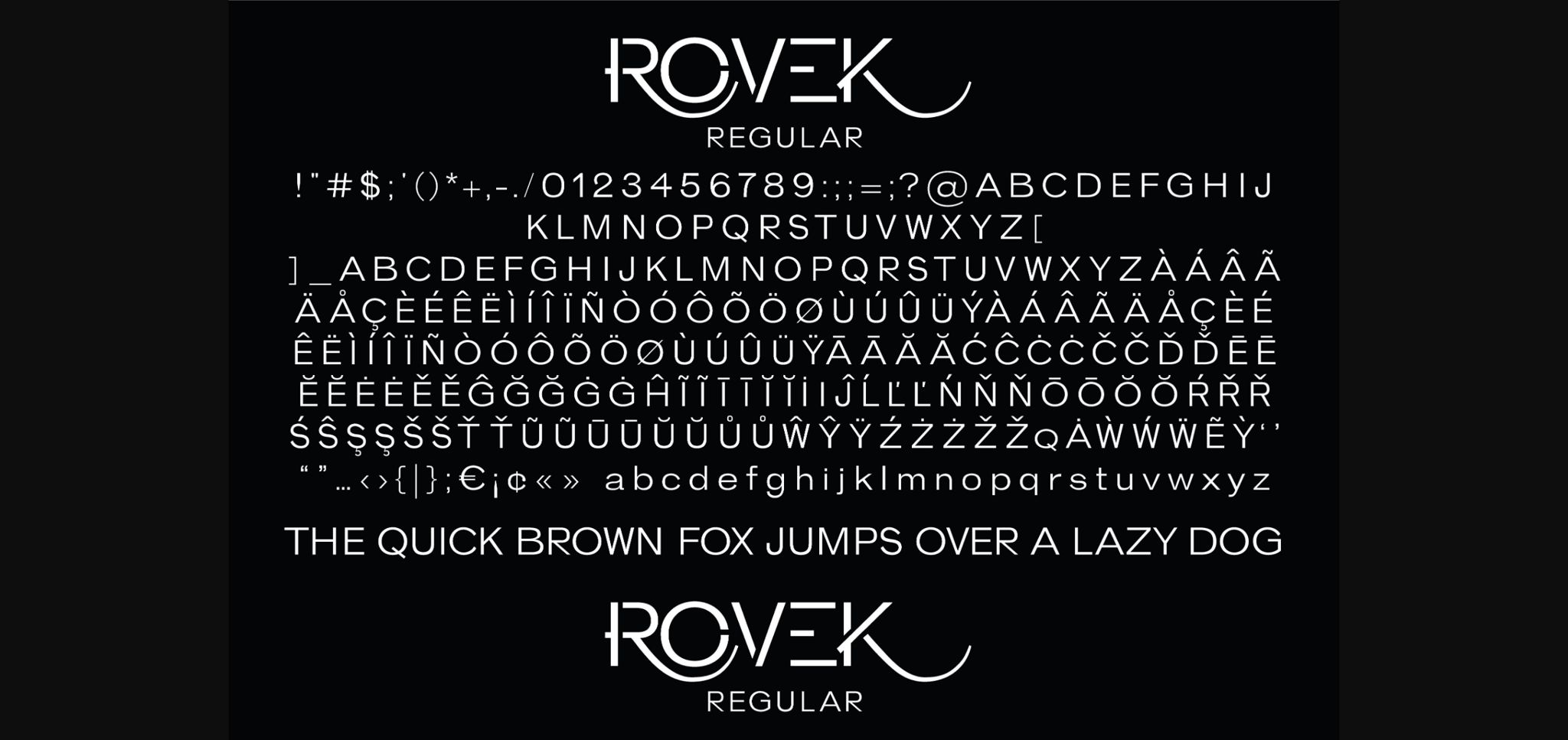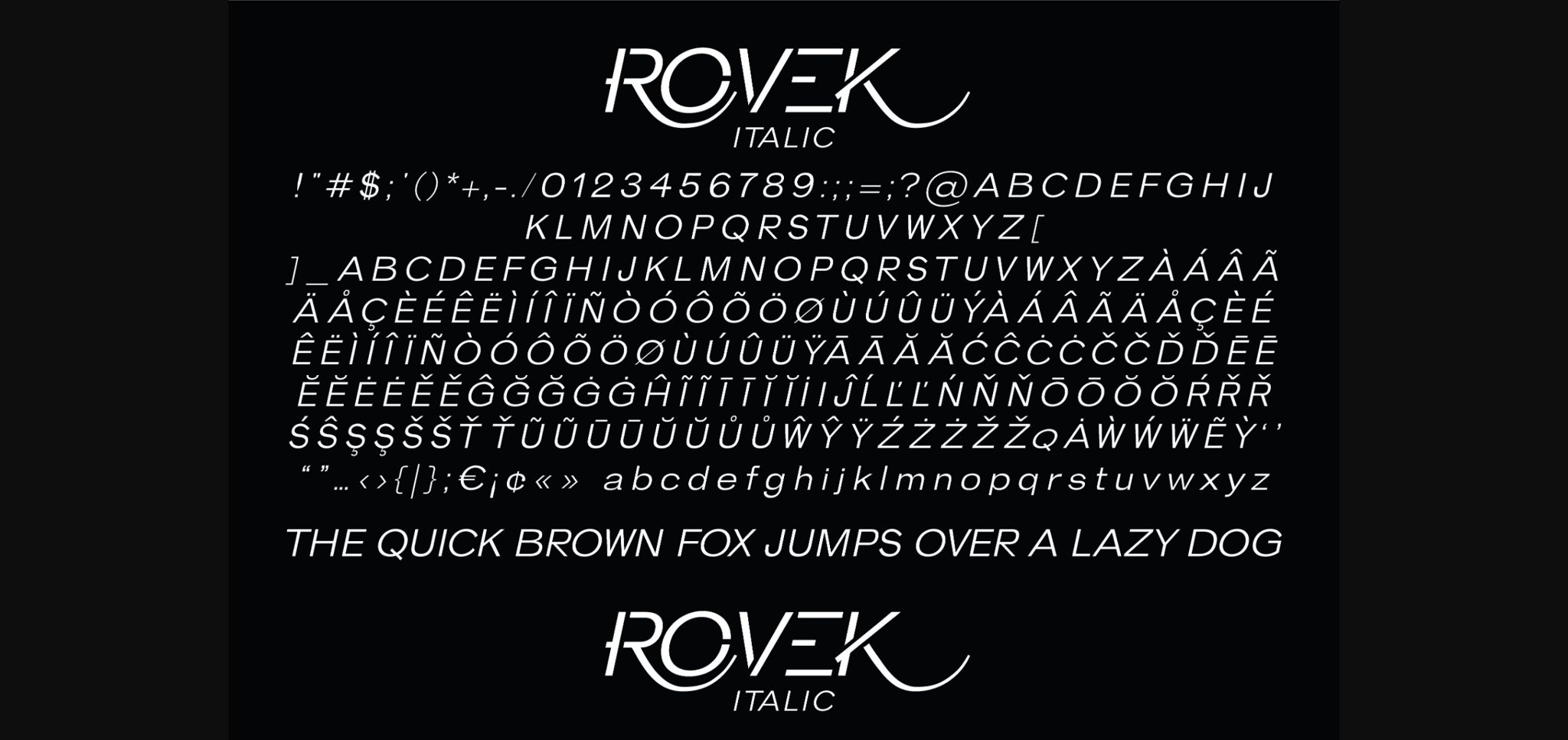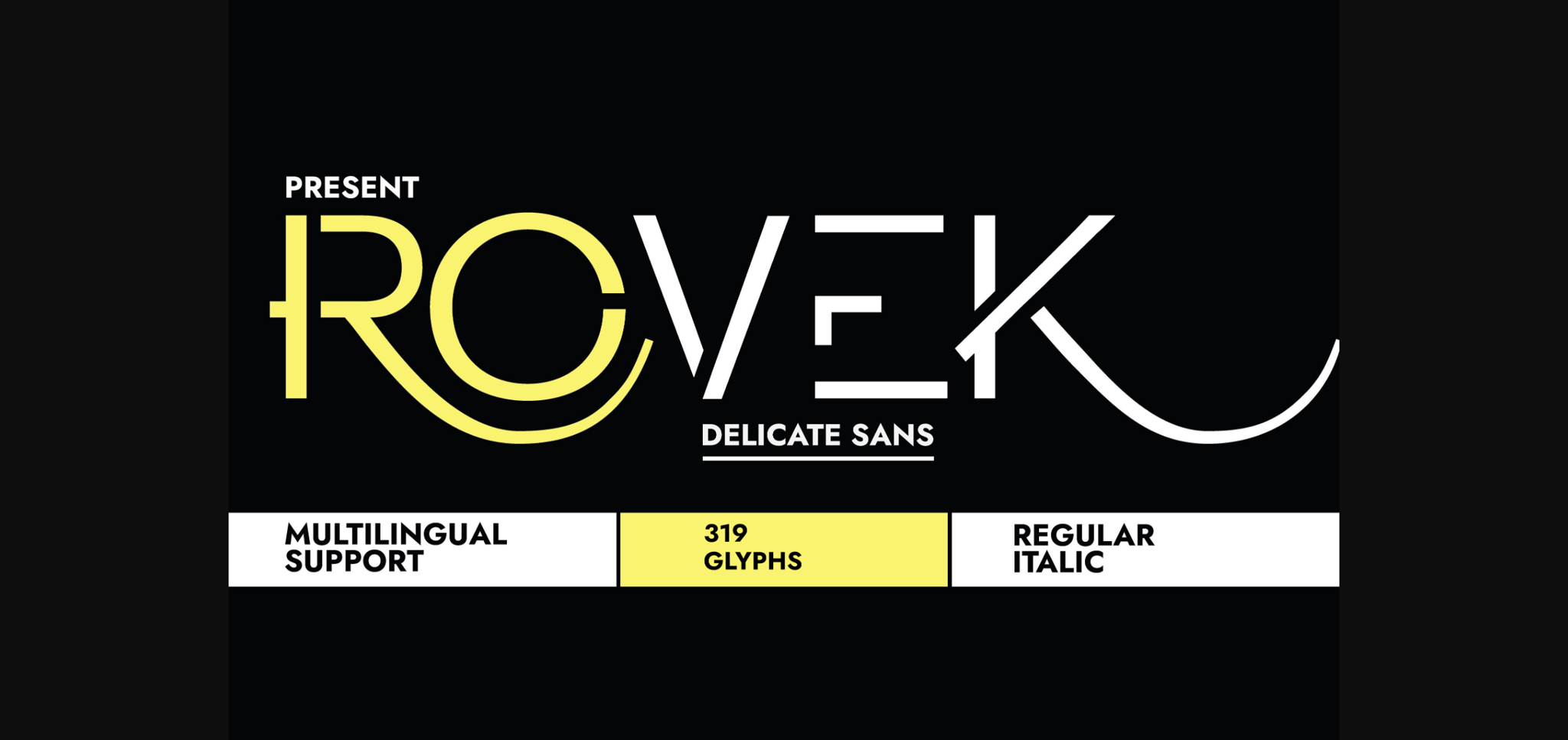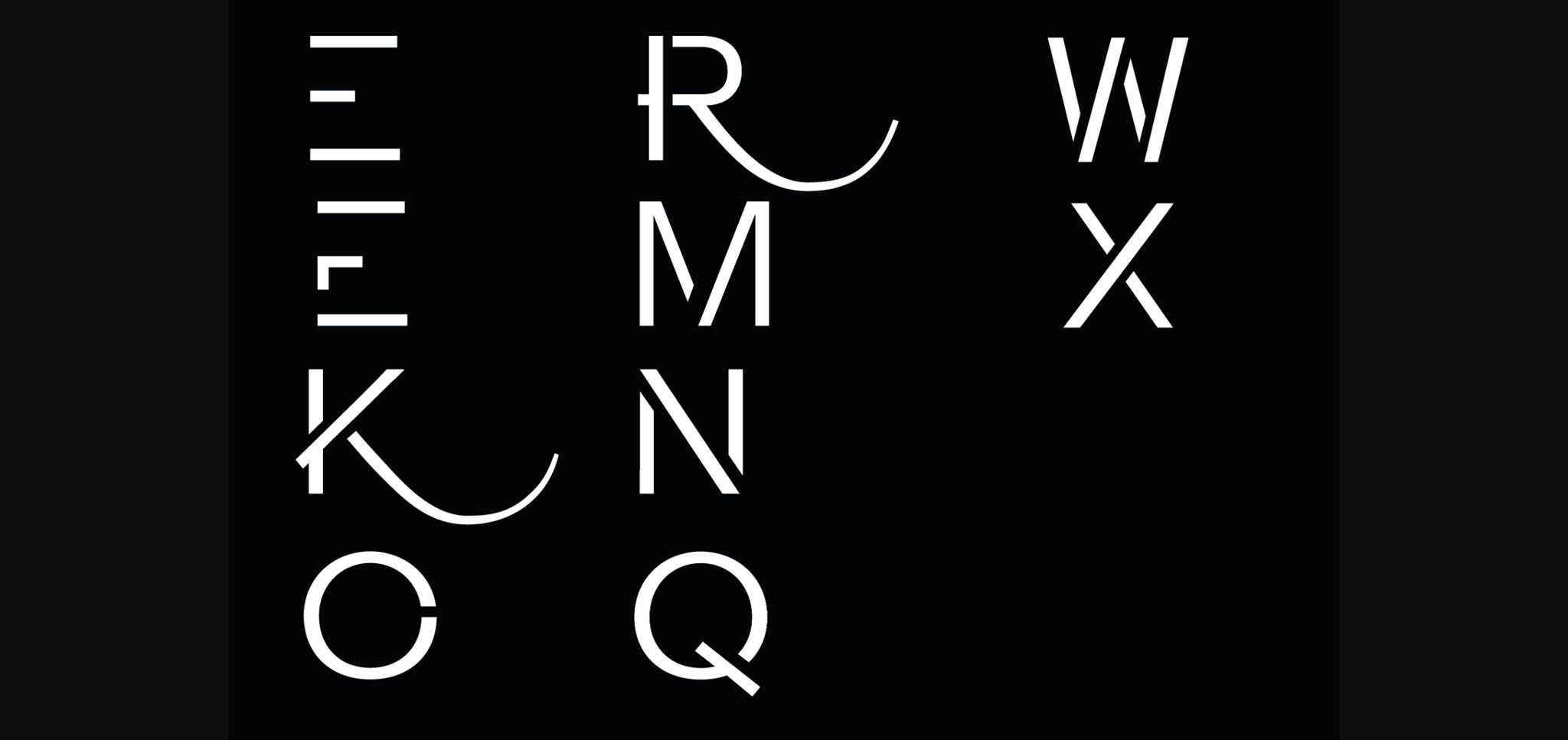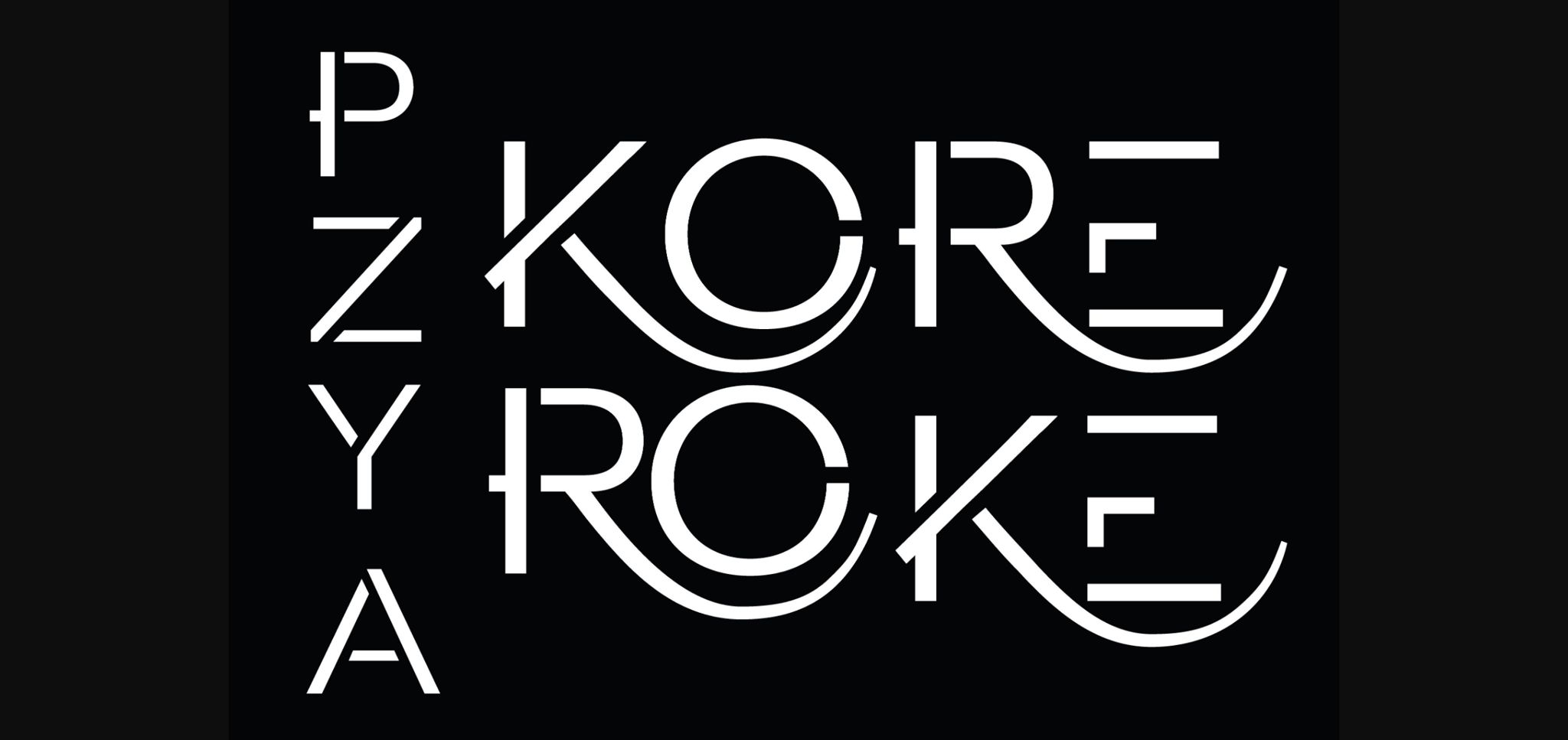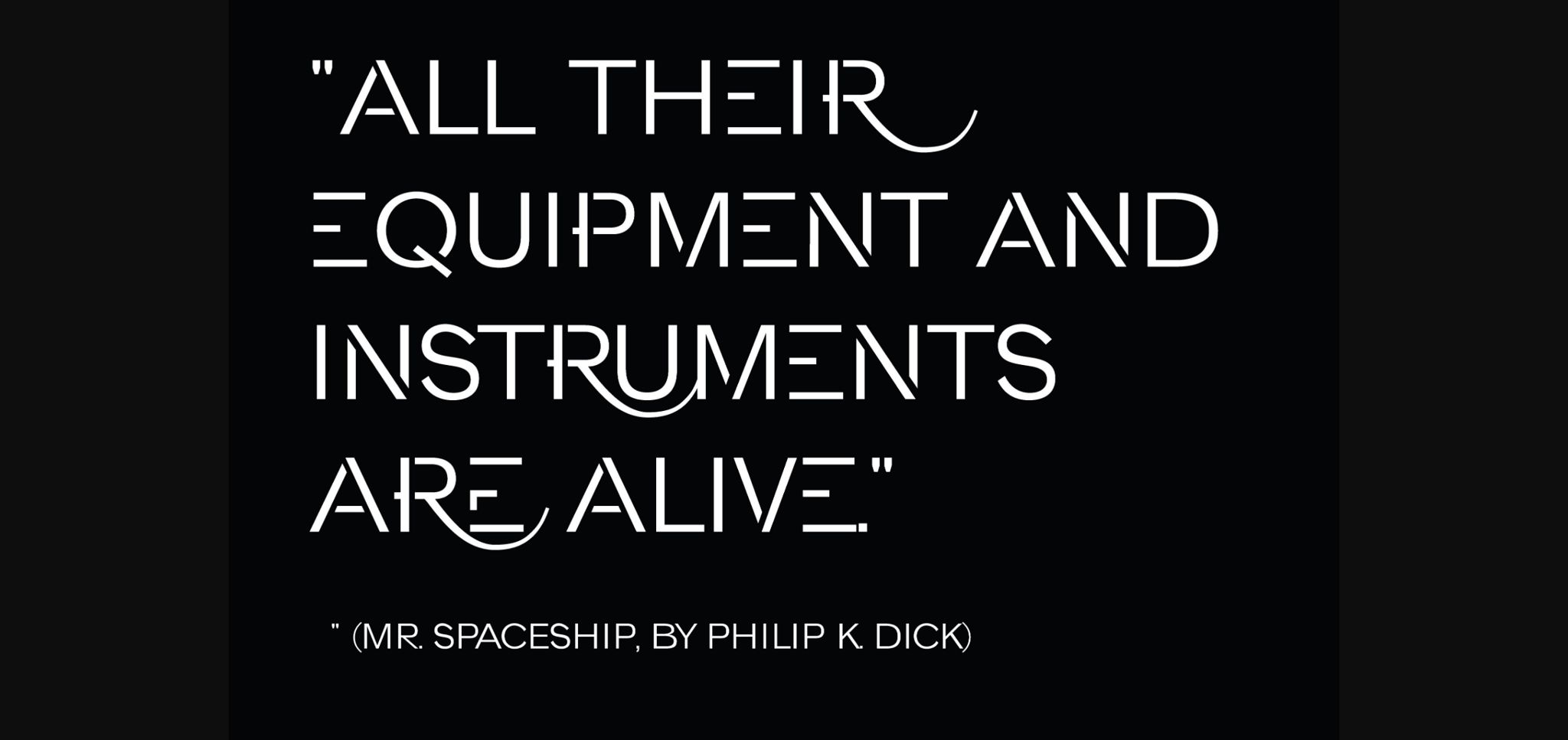
About Rovek Font
Rovek is a minimalist revolutionary sans-serif typeface. This typeface is very versatile because it combines the classical grotesque aspect with some modern alternative letters, stylistic alts, and ligatures to enrich your creative ideas as much as possible. Use it in your creation and notice how it take them to next level!